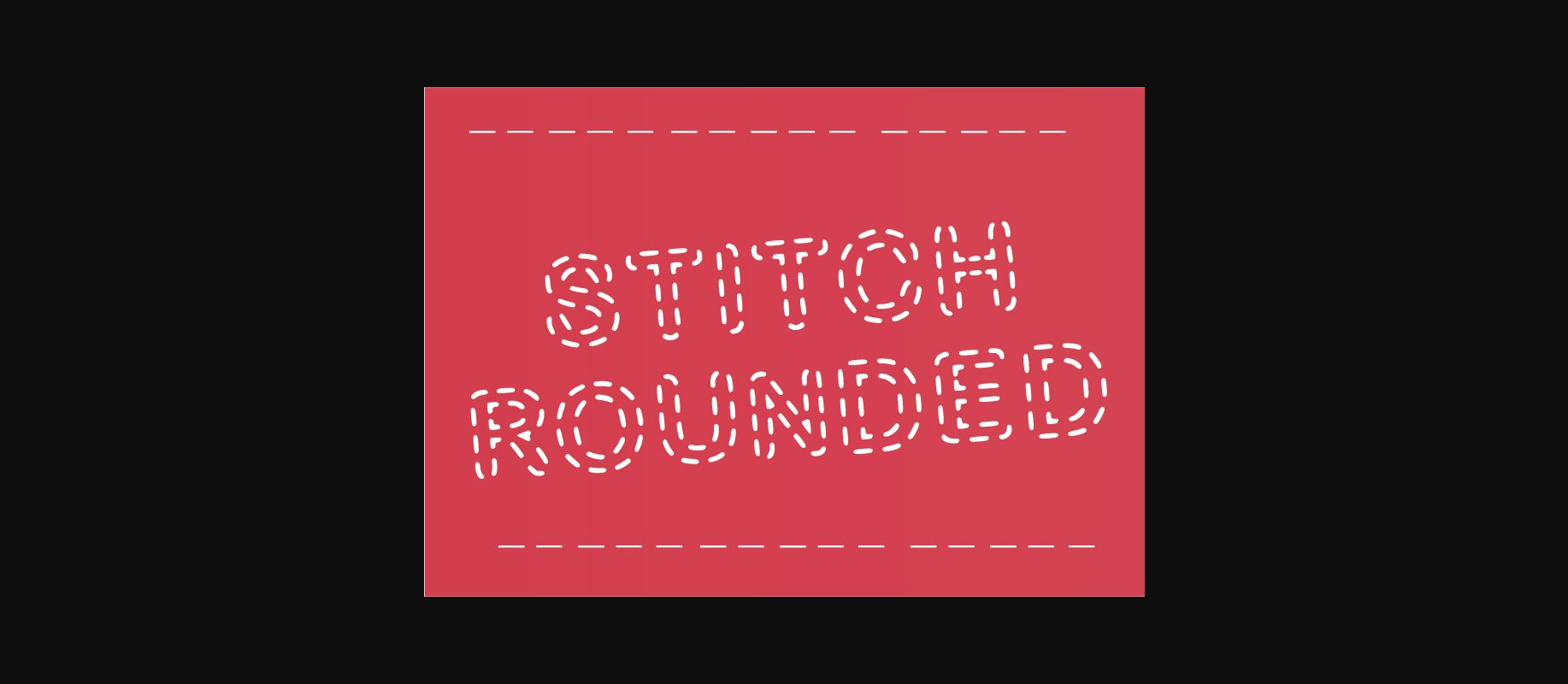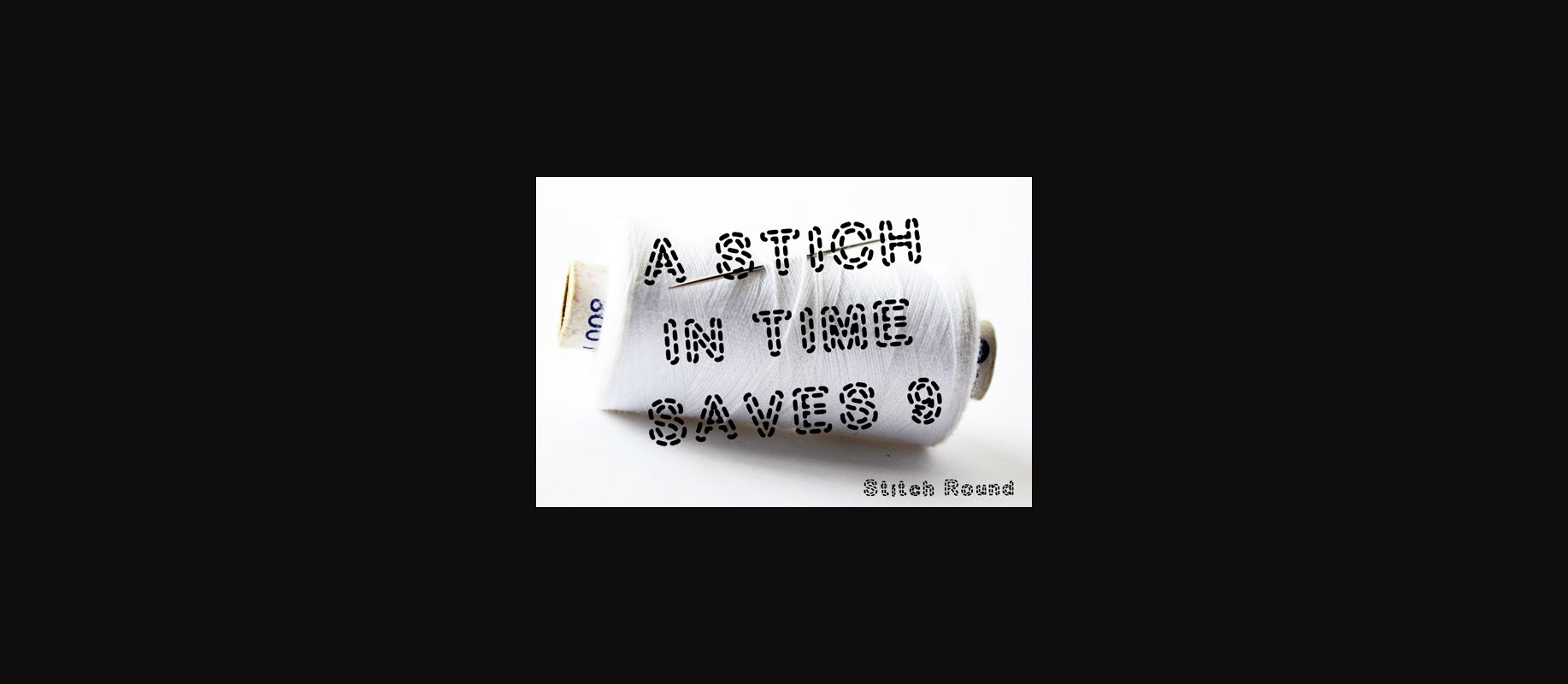
HomeDecorative FontsStitch Rounded Font Decorative Fonts Stitch Rounded Font FacebookXPinterestWhatsApp 1 of 2 About Stitch Rounded Font Stitched font with rounded edges. For a causal craft look in upper and lowercase with numbers. DOWNLOAD NOW People also explored Milton Font Miskelia Font Baritta Font Craftery Extra Light Font Authemart Script Font Sebastien Font Handsome Tailor Font Ashley Brush Script Hayleish Beasttie Font 417 0 TagsStitch Rounded Font Previous articleSplit FontNext articleReality Spray Font LEAVE A REPLY Cancel reply Comment: Please enter your comment! Name:* Please enter your name here Email:* You have entered an incorrect email address! Please enter your email address here Website: Save my name, email, and website in this browser for the next time I comment. Personal Use Free Colombia Personal Use Free Read more about this font Built Tilting Personal Use Free Read more about this font First Be Lucky Personal Use Free Read more about this font Authurium Personal Use Free Read more about this font BLOG Transform Your Website: Elevate Your Typography with 7 Best Web Font Generators Are you ready to transform your website's typography from ordinary to extraordinary? Great! Today, we're diving into the world of web font generators, which... Elegant Wedding Invitation Fonts – Handwritten & Script Fonts Where to Buy American Fonts Online in 2024 Exploring Font Trends